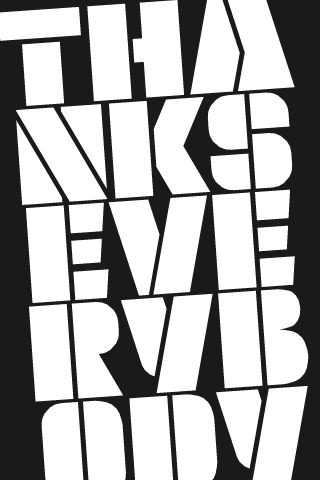
Very cool font.
Love it...especially the lower case and numerals.
Rock solid. 10/10
Incredible! I really like the G, Y, r, 1, 4, AE-lig and the esszet! 10/10
Others have got there first and used all the epithets that sprung to mind when I saw this wonderful design!
It has so much going for it - strong, clean, balanced and so very readable. I can only add my 10/10 to the list :)
Oh wow, initially I thought this was all done on a much smaller scale - but even so, this is quite something.
Congrats on the Featured FontStruction, beate! The slight angles in this font really add elegance in this subtle evolution of a stencil font. Beautifully done. (I would like to see an alt S with some slighted slants though) =)
A very COOL font!
I absolutely love this!
I love it
this is a strong stencil font, love the twist in a b d etc
Great Font!
Great work, very nice font !
Schöne Schrift!!!
I love the r.
The numerals are exellent
this a good font
Great stencil!
this reminds me of Viacom.
This is the best-est stencil i've ever seen! Beate, i am just speechless when i see each of your materpieces!